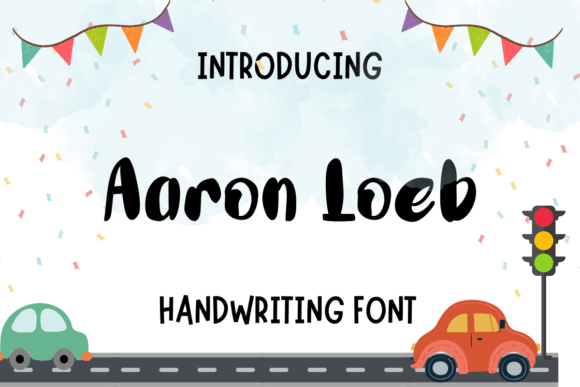
Embark on a typographic journey with "Aaron Loeb" font, a captivating script that exudes the essence of handwritten artistry. This meticulously crafted font captivates with its distinctive hand-drawn strokes, adding a touch of authenticity and charm to your creative projects.
Immerse yourself in the world of "Aaron Loeb," where elegance meets playfulness. Its slightly plump shape dances across your designs, evoking a sense of joy and lightheartedness. Whether you're crafting branding concepts, designing logotypes, or creating visually stunning magazines, "Aaron Loeb" becomes your trusted companion.
With "Aaron Loeb" as your creative ally, elevate your wedding invitations to new heights of sophistication. Its graceful curves and flowing lines add a touch of romance and timeless beauty, ensuring your special day is forever etched in the hearts of your loved ones.
Unlock the boundless potential of "Aaron Loeb" and let your imagination run wild. Explore the realm of quotes and transform ordinary words into captivating expressions of art. Immerse yourself in the world of design and create awe-inspiring posters that speak to the soul.